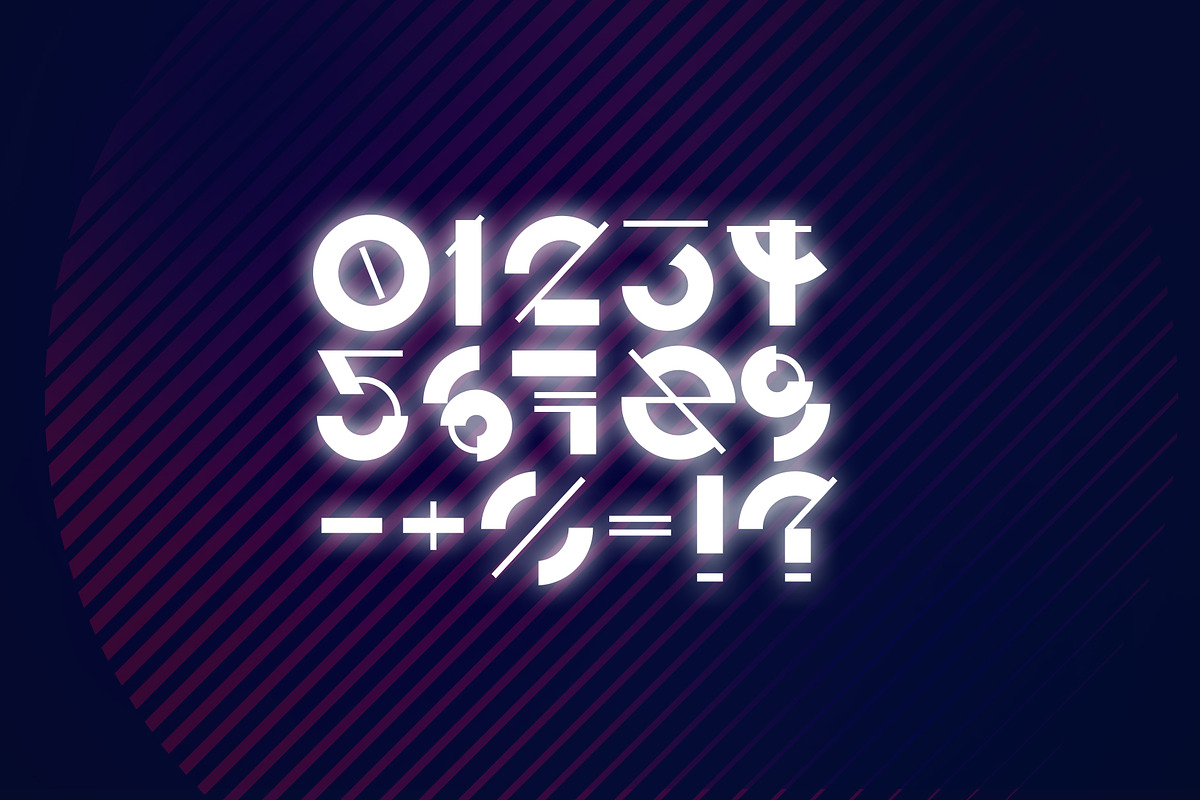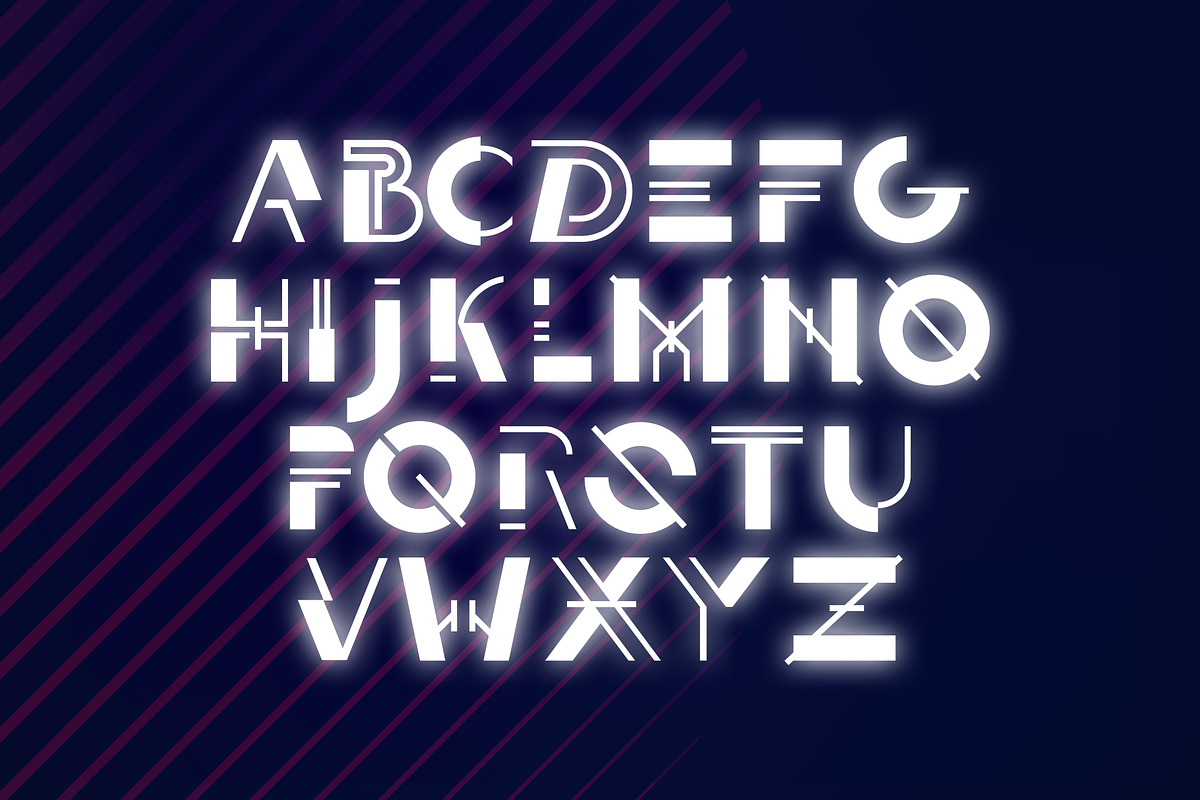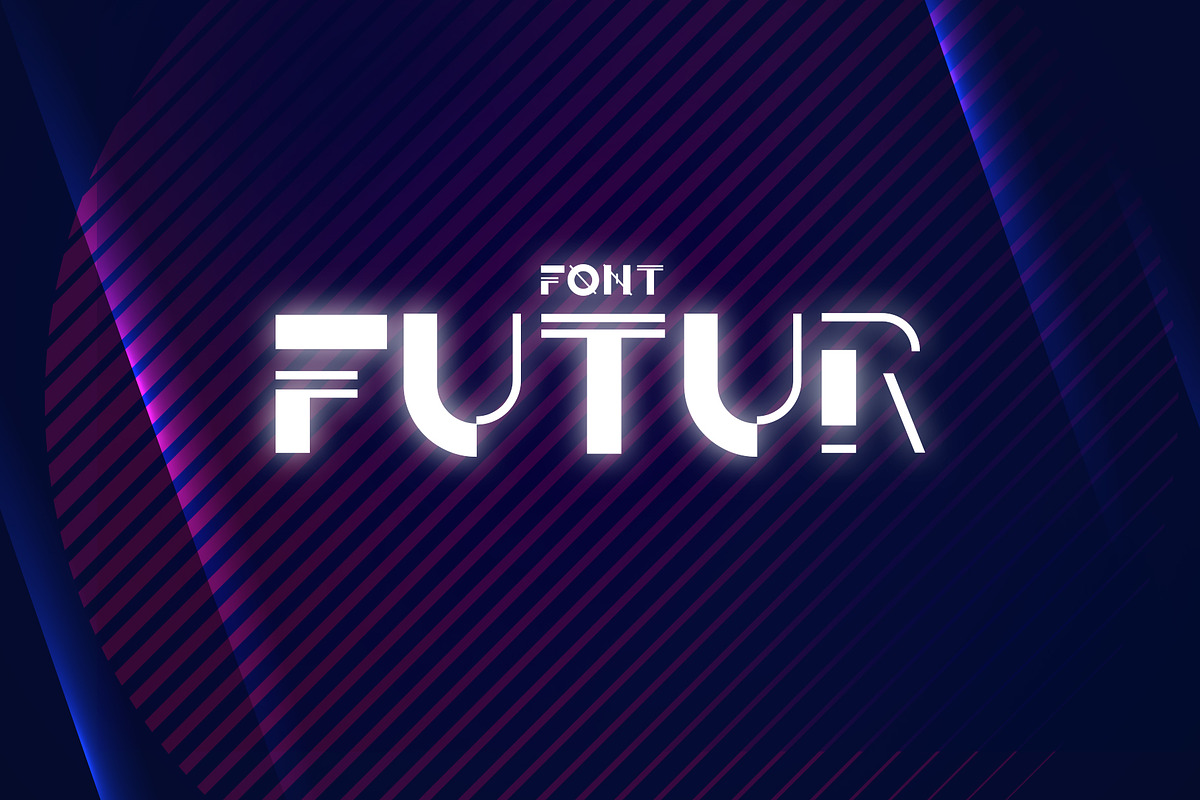
Ḟøחτ ᙀᙀᏒ
New stylish futuristic font ₣ᙀ₸ᙀᏒ. It is perfect for making headings, main inscriptions. You will accentuate the words in your flyers and booklets.
Ḟøחτ ₣ᙀ₸ᙀᏒ
- Сapital letters A-Z
- Numbers 0-9